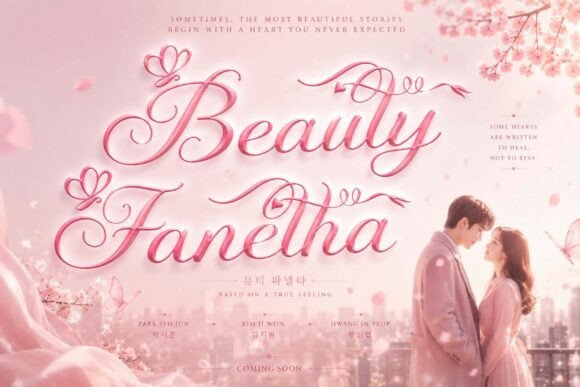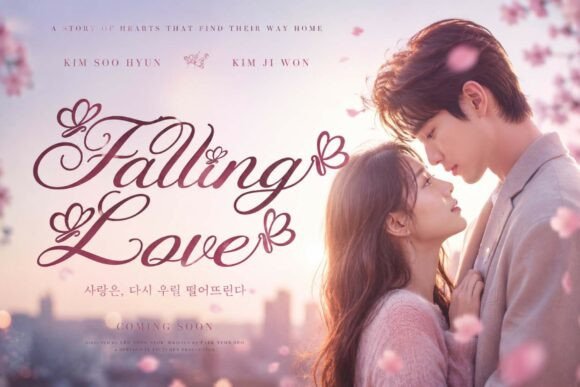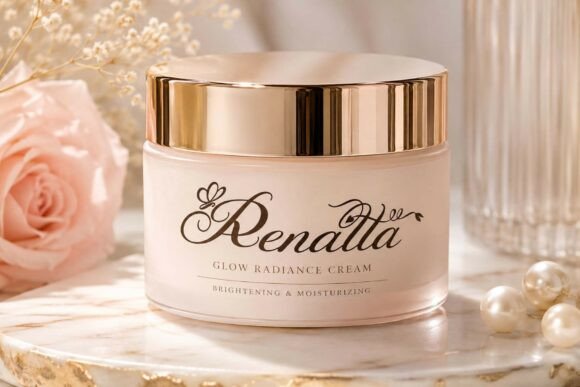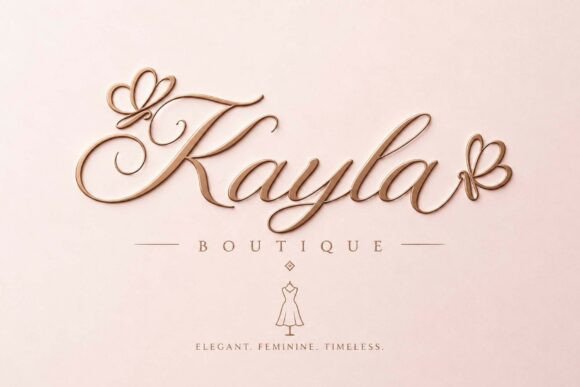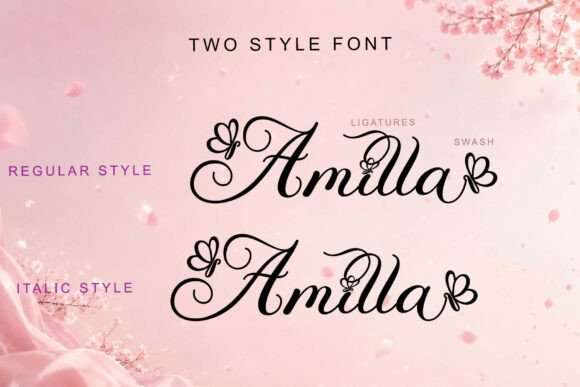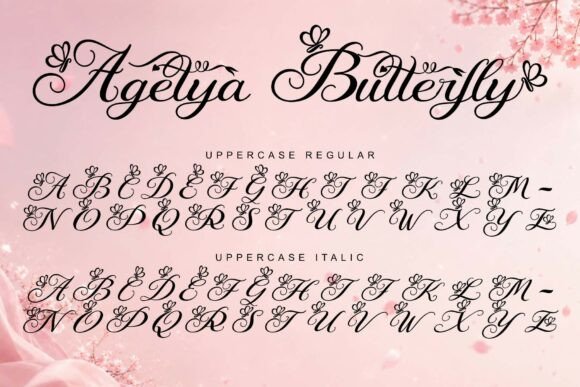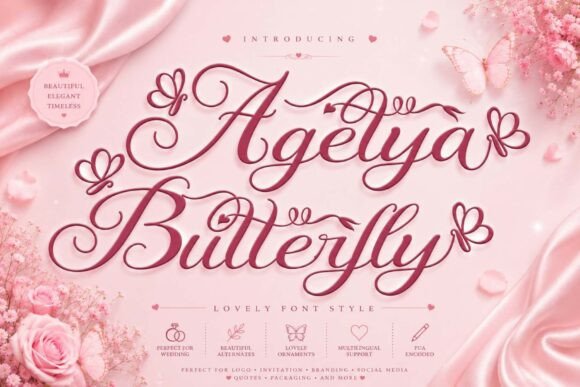
Agetya Butterfly Font: Elevate Your Designs with Elegance and Sophistication
Are you looking for a font that can add a touch of romance and elegance to your designs? Look no further than the Agetya Butterfly Font. This beautiful and elegant handwritten font is perfect for designers and crafters who want to create stunning visual content for various projects. In this article, we’ll explore the features and benefits of the Agetya Butterfly Font and how it can elevate your designs.
What is Agetya Butterfly Font?
Agetya Butterfly is a beautiful and elegant handwritten font that is available in two styles: regular and italic. It features uppercase and lowercase letters, numbers, punctuation, multilingual support, ligatures, swashes, and alternates. This font is designed to be versatile and can be used for a wide range of projects, from romantic movies and wedding invitations to photography, floral arrangements, social media, advertisements, YouTube, Christmas, summer, Valentine’s Day, song titles, movie titles, and more.
Key Features of Agetya Butterfly Font
- Two Styles: Regular and Italic
- Character Set: Uppercase and lowercase letters, numbers, punctuation
- Multilingual Support: Supports multiple languages
- Ligatures, Swashes, and Alternates: Adds a touch of elegance and sophistication to your designs
Benefits of Using Agetya Butterfly Font
The Agetya Butterfly Font offers several benefits to designers and crafters. Here are a few:
- Elegance and Sophistication: Adds a touch of elegance and sophistication to your designs
- Versatility: Can be used for a wide range of projects, from romantic movies to social media posts
- Easy to Read: Clear and readable, making it perfect for body text and headlines
- Customizable: Can be used with ligatures, swashes, and alternates to create unique and creative designs
Use Cases for Agetya Butterfly Font
The Agetya Butterfly Font is perfect for a wide range of projects, including:
- Romantic Movies: Add a touch of romance and elegance to your movie titles and posters
- Wedding Invitations: Create beautiful and elegant wedding invitations that will impress your guests
- Photography: Use the Agetya Butterfly Font to add a touch of elegance to your photo captions and titles
- Floral Arrangements: Create beautiful and elegant labels and cards for your floral arrangements
- Social Media: Use the Agetya Butterfly Font to create stunning social media posts that will grab the attention of your followers
- Advertisements: Add a touch of elegance and sophistication to your advertisements
- YouTube: Use the Agetya Butterfly Font to create stunning video titles and descriptions
- Christmas, Summer, and Valentine’s Day: Create beautiful and elegant designs for these special occasions
- Song Titles and Movie Titles: Add a touch of elegance and sophistication to your song titles and movie titles
The Agetya Butterfly Font is a beautiful and elegant handwritten font that is perfect for designers and crafters who want to add a touch of romance and elegance to their designs. With its versatility, ease of use, and customizable features, this font is sure to elevate your designs and make them stand out. Whether you’re working on a romantic movie, wedding invitation, or social media post, the Agetya Butterfly Font is a great choice.